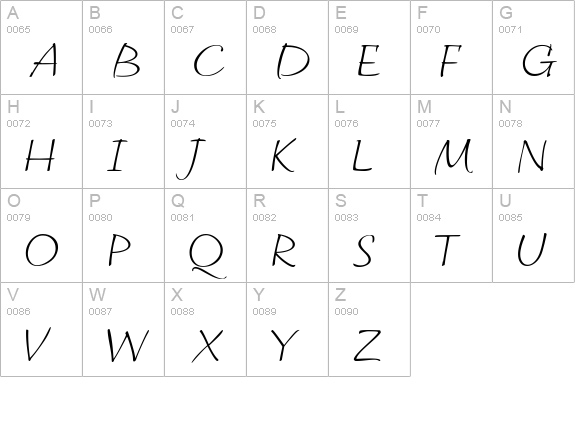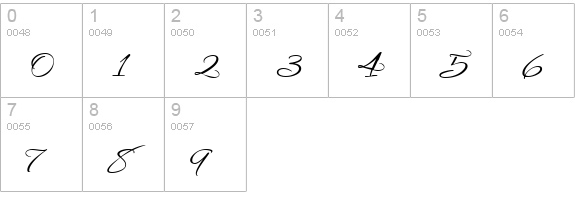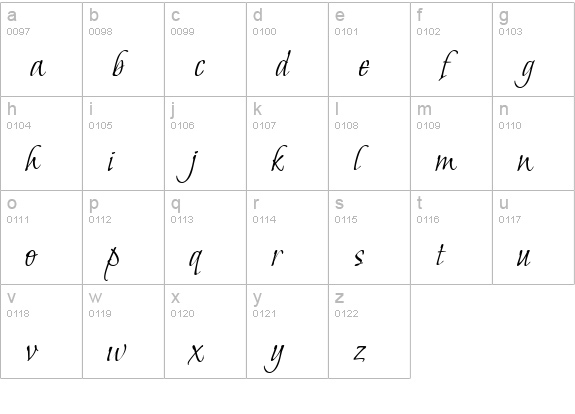
MoonDanceOne Font Details
MoonDanceOne font is a whimsical and elegant typeface that exudes charm and personality. Its flowing curves and delicate lines create a sense of movement and grace, making it perfect for adding a touch of magic to your designs. This free font is ideal for projects that require a touch of sophistication and playfulness, whether it's invitations, branding, or social media graphics. You can download MoonDanceOne font for free at FontsMarket.com, where you can explore a wide range of fonts to suit your creative needs. Don't miss out on the opportunity to add this enchanting font to your collection and bring a touch of whimsy to your next project.